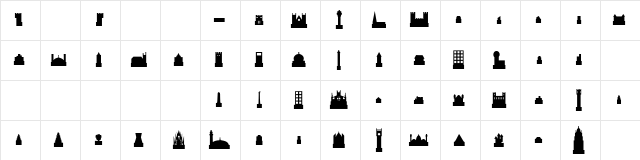
Cityscape!" Regular
Design Context for Cityscape!" Typeface
Cityscape!" is a composed and adaptable typeface that performs quietly and consistently across a wide range of design contexts.
Pro Tip: Use Cityscape!" in both headline and body roles to test its range before committing to a single application.